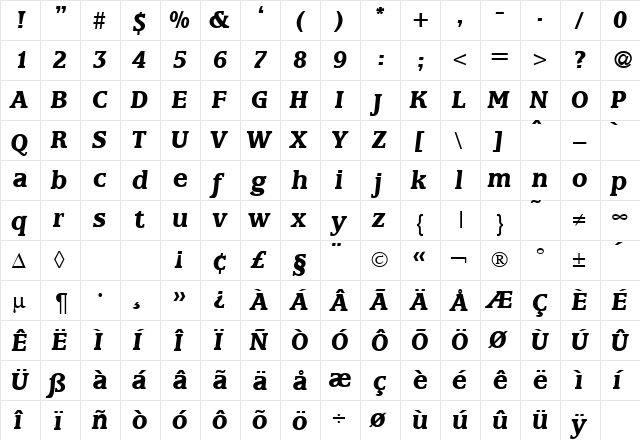
Marburg BoldItalic
Design Context for Marburg Typeface
Marburg is a composed and adaptable typeface that performs quietly and consistently across a wide range of design contexts. The dynamic lean of this cut emphasises speed and emphasis in any layout. Its bold stroke weight gives it real presence on the page.
Pro Tip: Try Marburg for annotation and caption copy alongside an upright companion — the contrast in angle creates a dynamic but ordered typographic system.